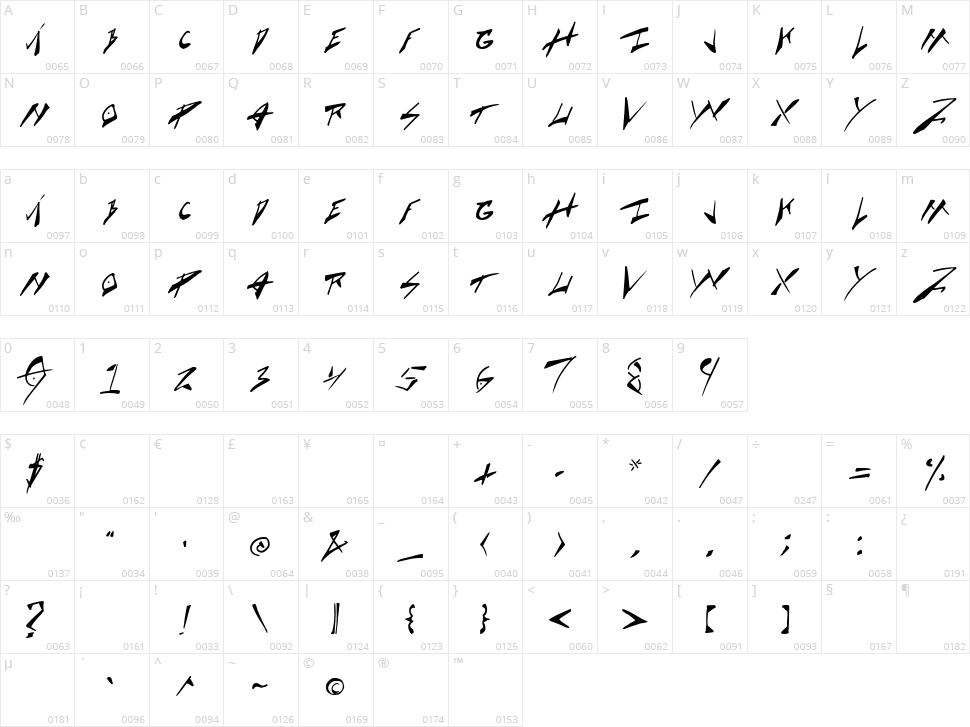
Cock Boat
COCK BOAT
A TrueType Font by S. John Ross
"You can name it anything you like," I said. Jhada Rogue Addams, my sister-in-spirit from back east in Virginia, was visiting Sandra and I in Texas and so, naturally, I had her "working in the font mines," doodling letters and even drawing a (very cool) Spark for the Scrapbook. She had drawn the wild and eclectic set of characters that make up Cock Boat (a full keyboard caps set with a few extras thrown in) but hadn't yet named it. We were at the 503 Coffee Bar at the time, and Amy had drawn the masters with a Sharpie. She wouldn't hit on the perfect name 'til later that evening.
Apparently, the phrase "Here comes the cock boat!" was used in an off-color Dilbert parody online somewhere, and Rogue had found the term charming. So here we are, with a font to carry it into the digital eternity. Share it with your family; I'll be sharing it with mine.